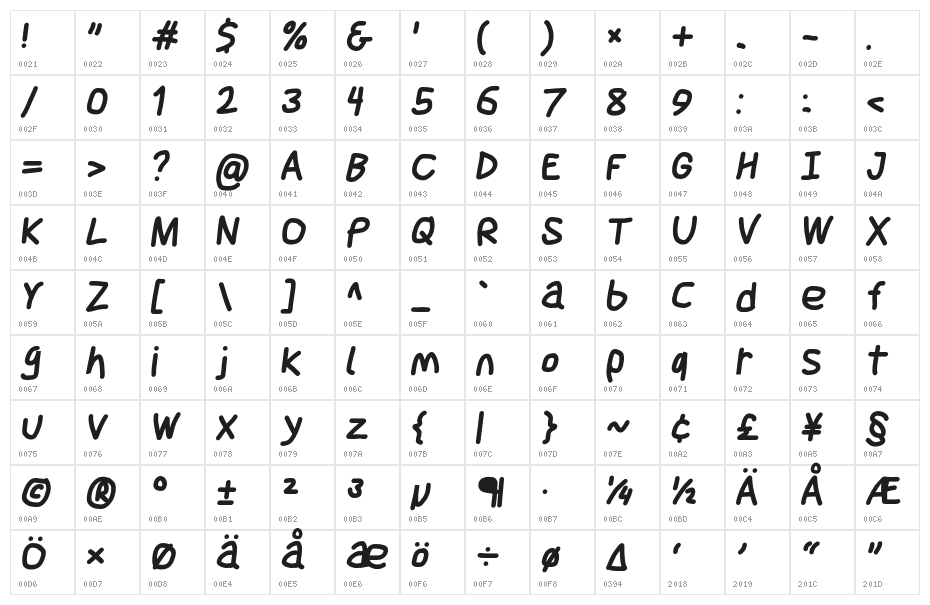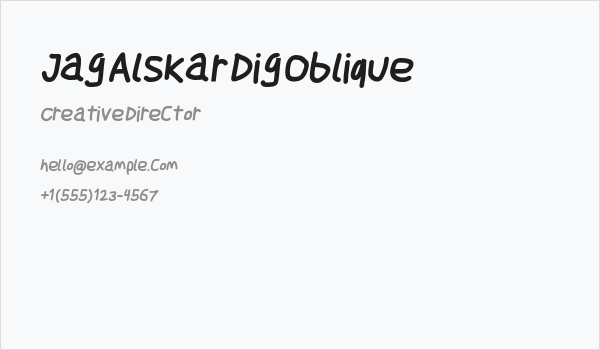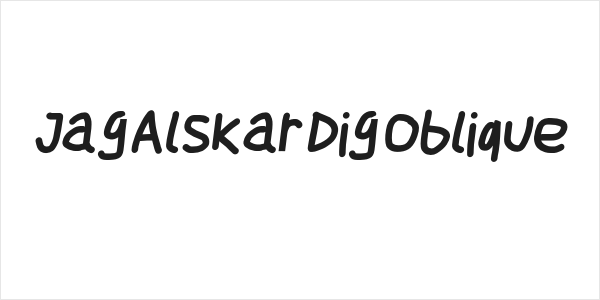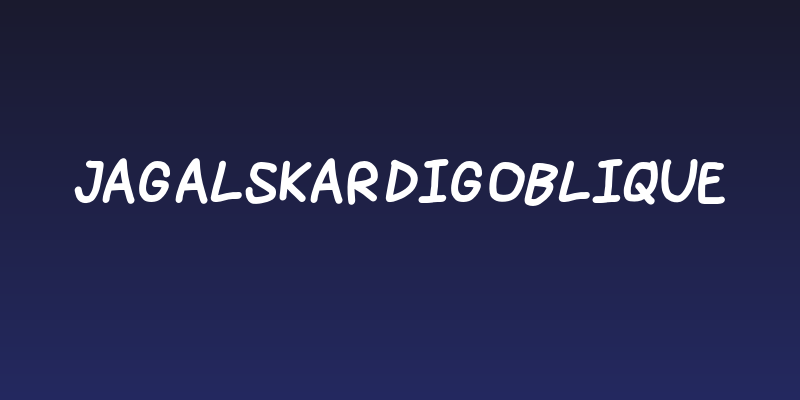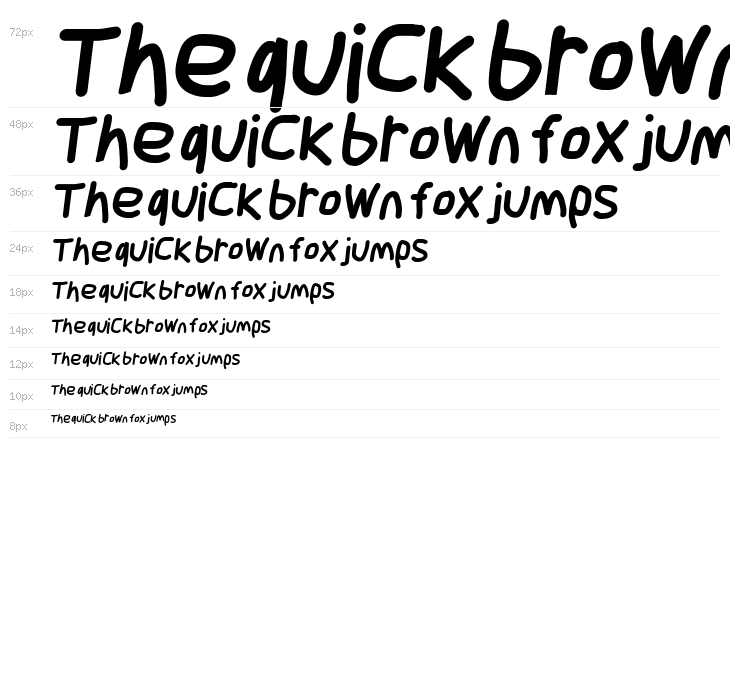
Jag Alskar Dig Oblique Font
Jag Alskar Dig Oblique Description
This font features a playful, handwritten style with a casual and friendly appearance. The letters are slightly slanted, giving it an oblique look that adds to its informal charm. The strokes are consistent in thickness, providing a uniform appearance across all characters. The rounded edges and smooth curves contribute to its approachable and warm feel. This font is versatile, suitable for projects that require a personal touch or a relaxed vibe. It includes a full set of uppercase and lowercase letters, numbers, and a variety of special characters, making it highly functional for diverse applications.
Overall StyleCasual
Use CaseHeadlines, Informal text, Personal projects
Proposed ProjectsIdeal for greeting cards, children's books, casual branding, and social media graphics.